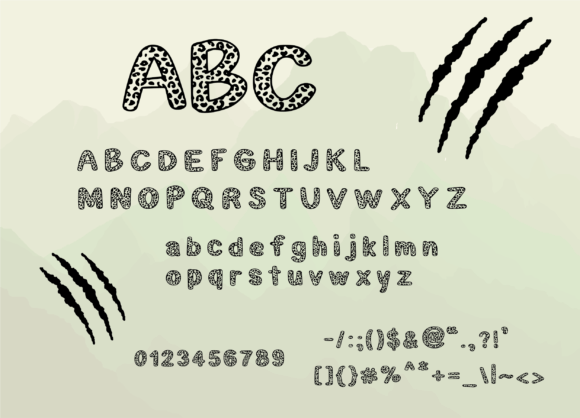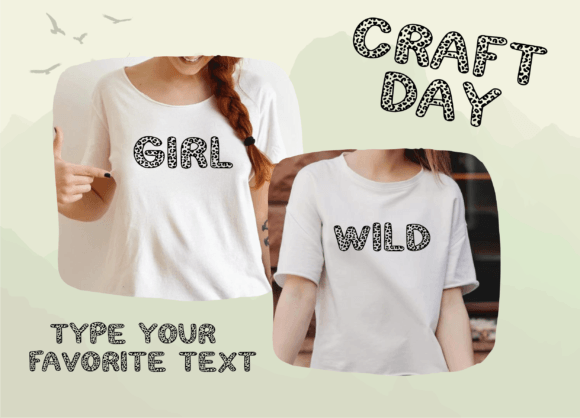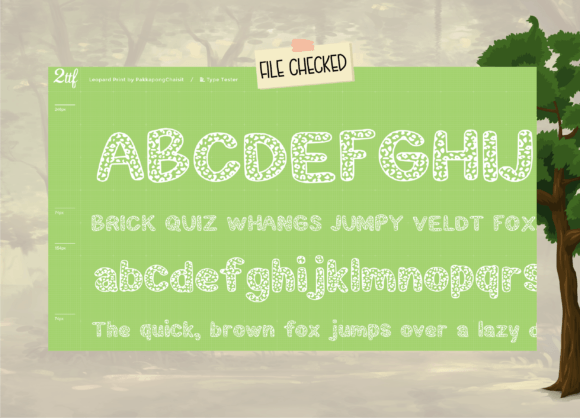
Introduction to Leopard Print Font
As you sit in front of your computer, staring at a blank canvas, you suddenly feel the urge to unleash your wild side. You envision a design that’s as untamed as the jungle itself – one that screams adventure and freedom. That’s when you remember the Leopard Print Font, a game-changing design resource that’s about to take your creative project to the next level.
With its bold, high-quality design, this font is a must-have for any designer looking to add a touch of exotic flair to their work. Whether you’re creating a brochure for a wildlife sanctuary or designing a logo for a jungle-themed restaurant, the Leopard Print Font is the perfect choice. And the best part? It’s available for free download, complete with a transparent background, making it easy to integrate into any design.
As a designer, you know how valuable a unique and eye-catching font can be. The Leopard Print Font is more than just a design element – it’s a statement piece that conveys a sense of daring and mystery. It’s the perfect addition to any creative project that aims to evoke the thrill and beauty of the wild animal world.
Key Features of Leopard Print Font
- High-quality design resource ideal for creative projects, including invitations, greeting cards, and packaging.
- Unique leopard print design elements, including spots and rosettes, add a creative touch to any project.
- Perfect for designers looking for a stylish and eye-catching design resource to elevate their work.
Honest Review: Leopard Print Font
As a designer, I’ve had the pleasure of working with various design resources, and the Leopard Print Font is definitely one that caught my eye. This font is perfect for creative projects that require a touch of sophistication and playfulness. ✨
I appreciate that the font comes with a transparent background, making it easy to use it on any design element. The high quality of the font ensures that it looks crisp and clear, even when enlarged. I was able to download it for free, which is always a bonus.
- Perfect for creative projects that require a touch of sophistication and playfulness
- Comes with a transparent background for easy use
- High quality font that looks crisp and clear
⚠️ One thing to note is that the font may not be suitable for formal or professional projects, as it has a playful and whimsical feel. Additionally, the font may not be available in as many languages as some other fonts.
Overall, I’m impressed with the Leopard Print Font and would definitely recommend it to designers who are looking for a unique and creative element for their projects.
How to Use Leopard Print Font
The Leopard Print Font is a unique design resource that can add a touch of creativity to your projects. It features a high-quality, transparent background that can be easily edited and customized.
Tips for Getting the Most Out of the Leopard Print Font
Here are some tips to help you get the most out of the Leopard Print Font:
- Combine the Leopard Print Font with other design elements to create a visually appealing design.
- Use the transparent background to create a sense of depth and dimension in your designs.
The Leopard Print Font is perfect for creative projects, including:
- Digital design